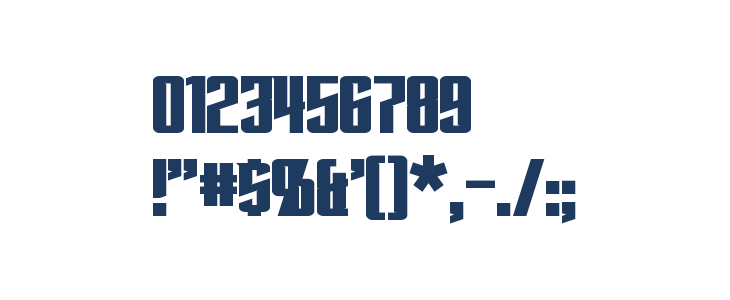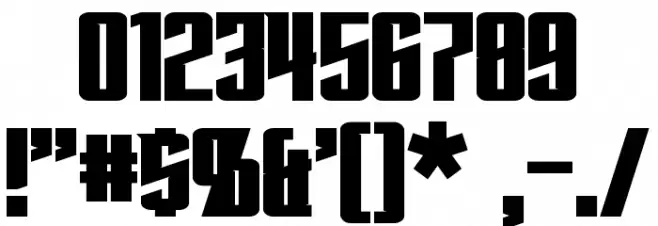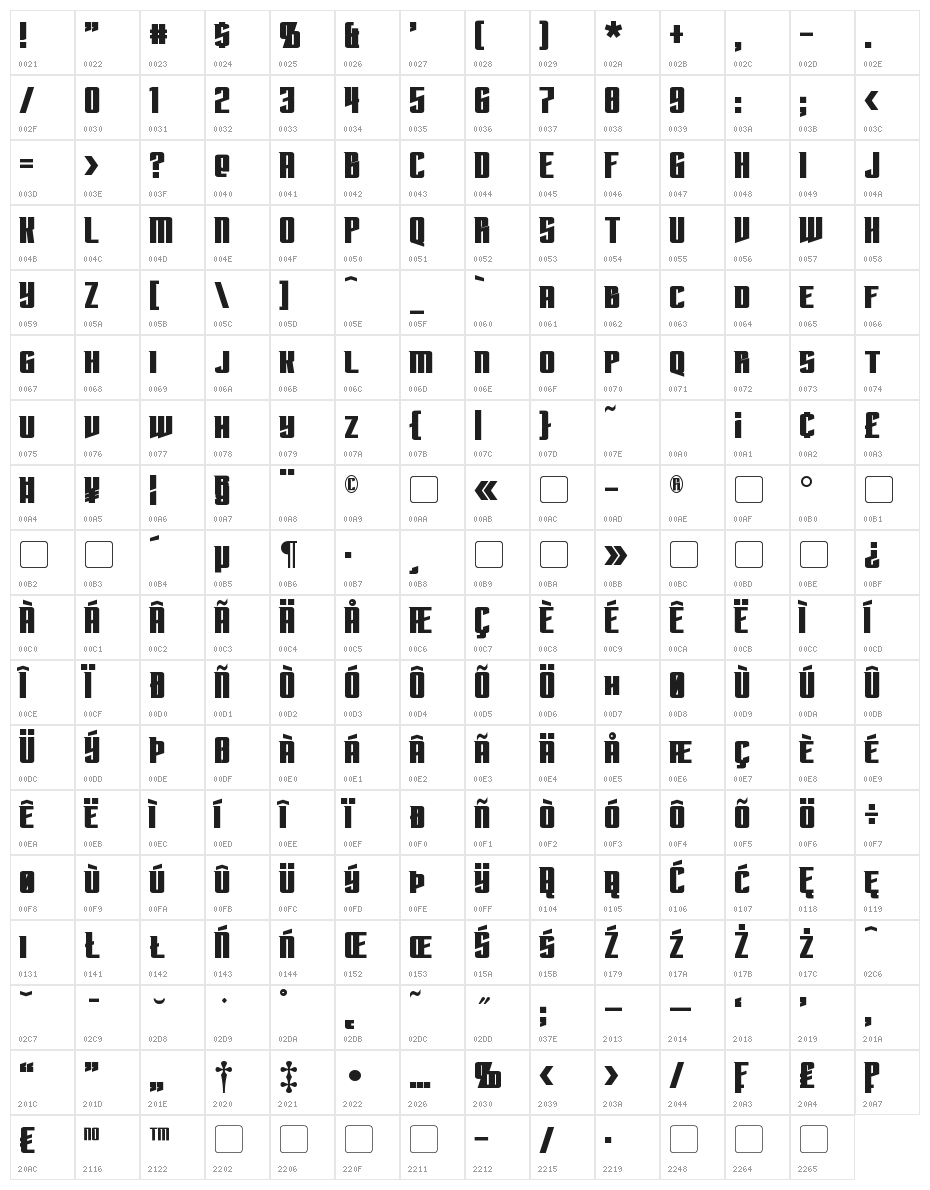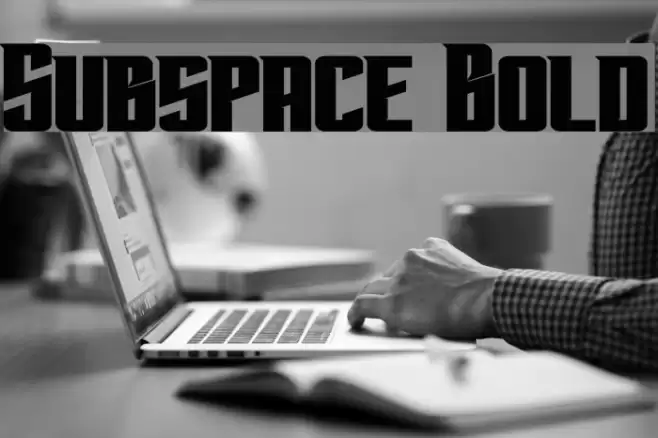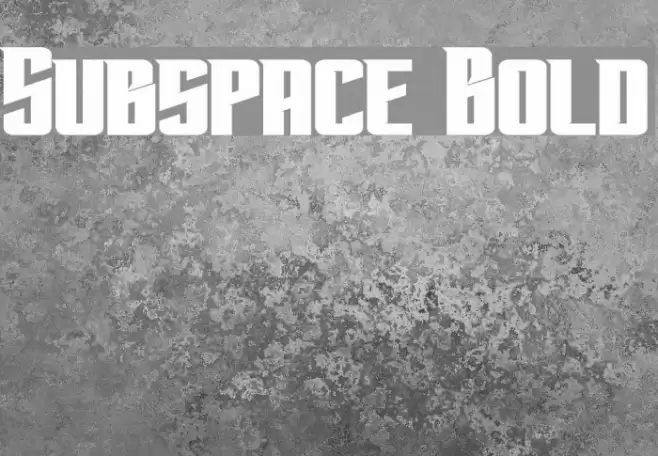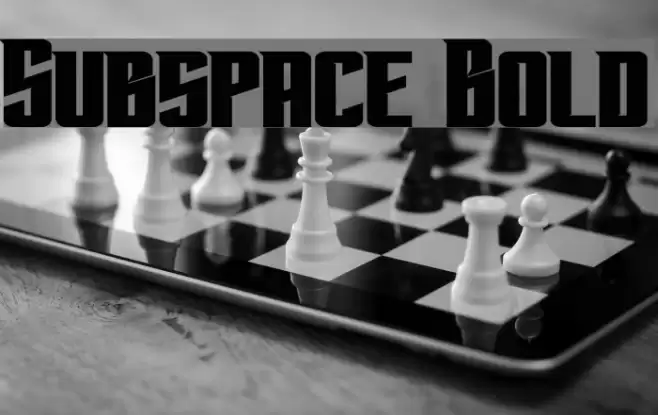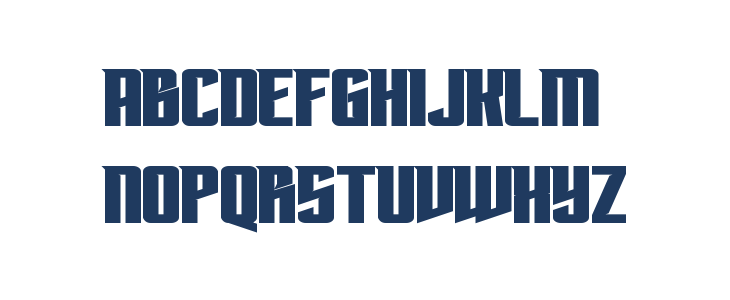
Subspace Bold Font
Subspace Bold Description
This font features a bold and geometric design with sharp, angular edges and a futuristic aesthetic. The uppercase letters are particularly striking, with a blocky appearance that conveys strength and modernity. The lowercase letters maintain the same boldness, ensuring consistency across the typeface. Numbers and special characters are designed to match the overall style, making this font suitable for a variety of applications. The uniformity in stroke width and the absence of curves give it a distinct, edgy look that stands out.
| Proposed Projects | Ideal for sci-fi themed projects, video game titles, posters, and branding that requires a modern and bold statement. |